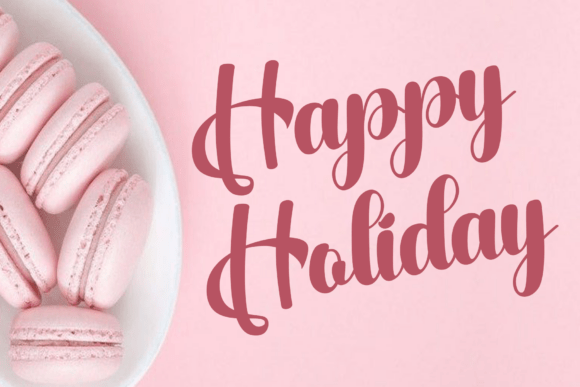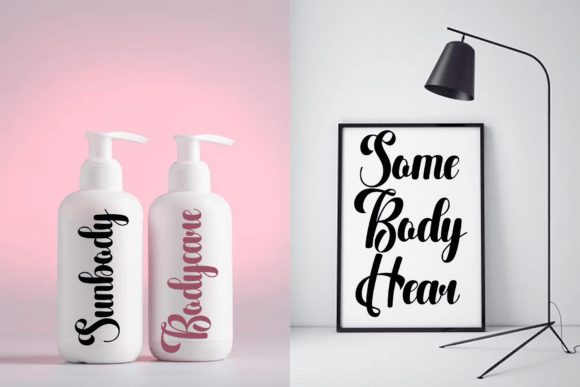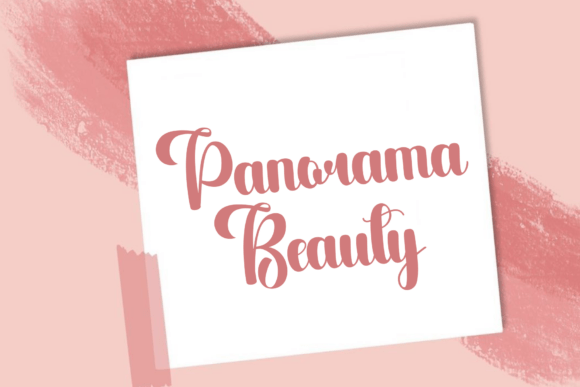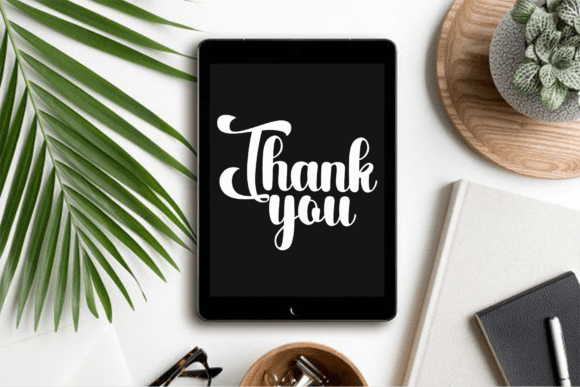
Dairy Baila Font: Elevate Your Designs with Elegance and Sophistication
In the world of typography, few fonts manage to capture the essence of charm and sophistication as effortlessly as the Dairy Baila font. This beautifully flowing script font has been making waves in the design community, and for good reason. With its smooth curves and handwritten feel, Dairy Baila is the perfect choice for designers and crafters looking to add a touch of elegance to their projects.
The Characteristics of Dairy Baila Font
Dairy Baila is a script font that exudes a sense of luxury and refinement. Its smooth, flowing lines and curves give it a distinctly handwritten feel, making it perfect for designs that require a personal touch. The font’s elegant and sophisticated appearance makes it an excellent choice for a wide range of applications, from wedding invitations and personal branding to elegant packaging and romantic quotes.
What Makes Dairy Baila Font So Versatile?
One of the key features that sets Dairy Baila apart from other script fonts is its versatility. The font’s smooth curves and flowing lines make it easy to read, even at small sizes, while its elegant appearance ensures that it will add a touch of sophistication to any design. Whether you’re creating a wedding invitation, a logo for a luxury brand, or a romantic quote for social media, Dairy Baila is the perfect choice.
Perfect for Wedding Invitations and Personal Branding
For designers and crafters specializing in wedding invitations and personal branding, Dairy Baila is a godsend. The font’s elegant and sophisticated appearance makes it perfect for creating beautiful, one-of-a-kind wedding invitations that will set the tone for the big day. Similarly, its refined appearance makes it an excellent choice for personal branding, allowing individuals to create a luxurious and sophisticated visual identity that reflects their personality and style.
Elegant Packaging and Romantic Quotes
But Dairy Baila’s applications don’t stop there. The font’s smooth curves and flowing lines make it perfect for elegant packaging designs, adding a touch of sophistication and refinement to any product. And for romantic quotes and social media posts, Dairy Baila’s handwritten feel and elegant appearance make it an excellent choice, allowing designers and crafters to create beautiful, eye-catching graphics that are sure to capture the hearts of their audience.
Why Designers and Crafters Love Dairy Baila Font
So why have designers and crafters fallen in love with Dairy Baila font? The answer lies in its unique combination of elegance, sophistication, and versatility. Whether you’re creating a wedding invitation, a logo for a luxury brand, or a romantic quote for social media, Dairy Baila is the perfect choice. Its smooth curves and flowing lines make it easy to read, while its elegant appearance ensures that it will add a touch of sophistication to any design.
Tips for Using Dairy Baila Font Effectively
To get the most out of Dairy Baila font, here are a few tips to keep in mind:
- Use Dairy Baila as a headline font to add a touch of elegance and sophistication to your design.
- Pair Dairy Baila with a sans-serif font to create a beautiful contrast and add visual interest to your design.
- Experiment with different colors and textures to add depth and dimension to your design.
- Don’t be afraid to get creative and try out new and innovative ways to use Dairy Baila in your designs.
In conclusion, Dairy Baila font is a beautifully flowing script font that radiates charm and sophistication. With its smooth curves and handwritten feel, it’s perfect for a wide range of applications, from wedding invitations and personal branding to elegant packaging and romantic quotes. Whether you’re a designer or crafter, Dairy Baila is an excellent choice for anyone looking to add a touch of elegance and sophistication to their designs.
Get Ready to Elevate Your Designs with Dairy Baila Font